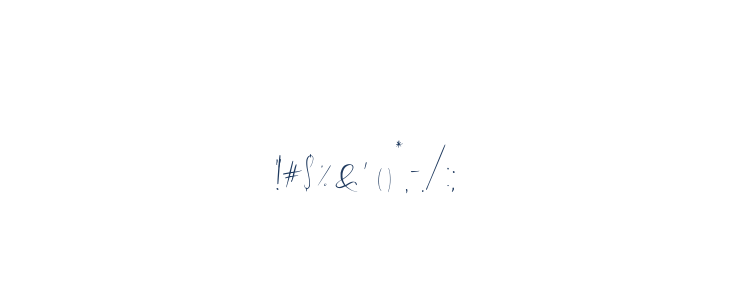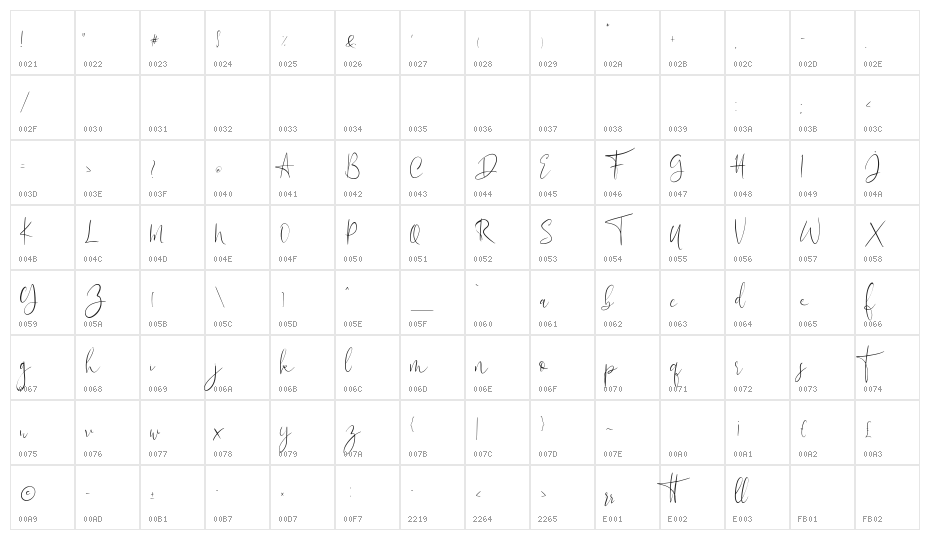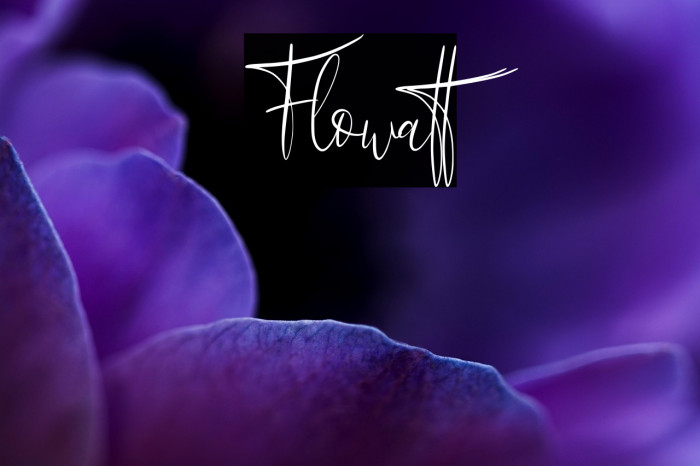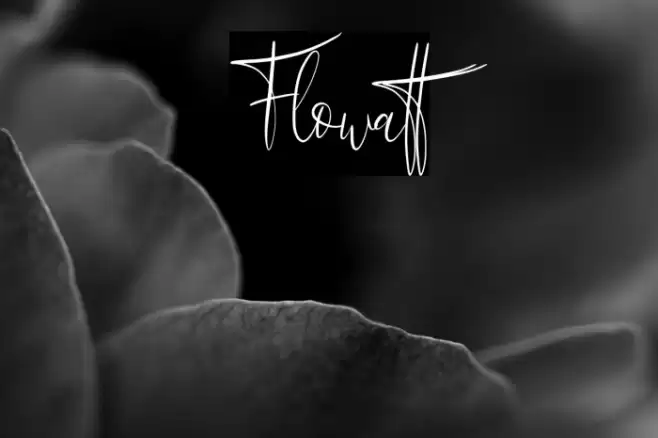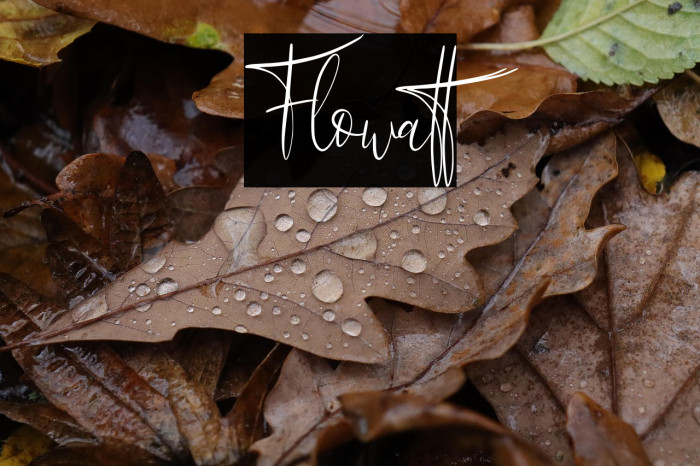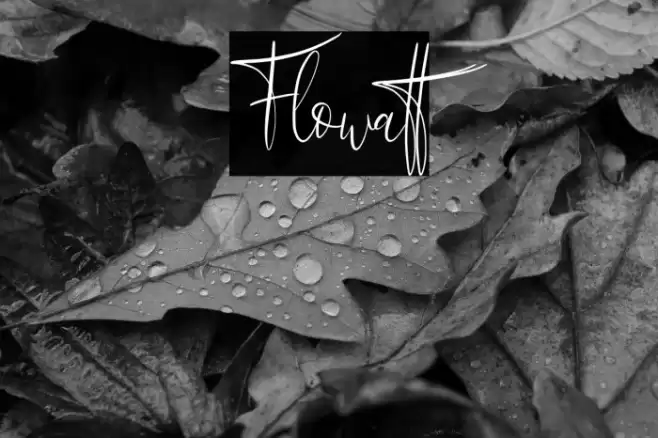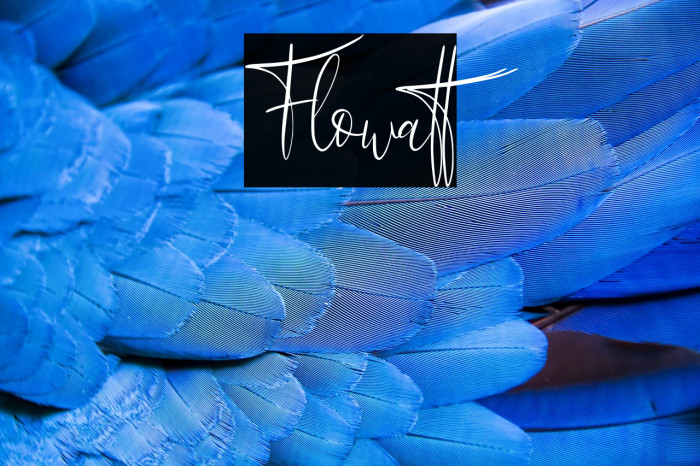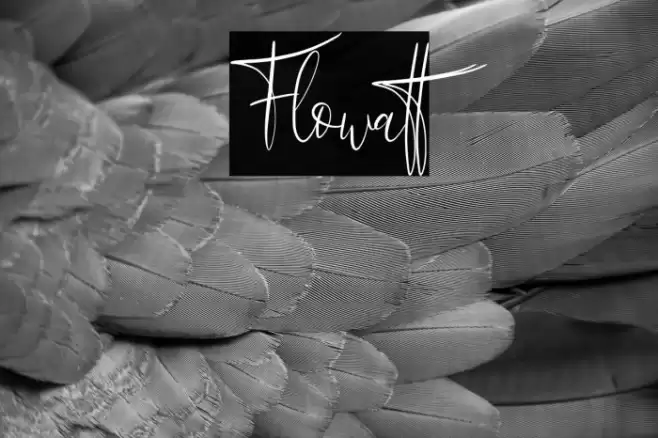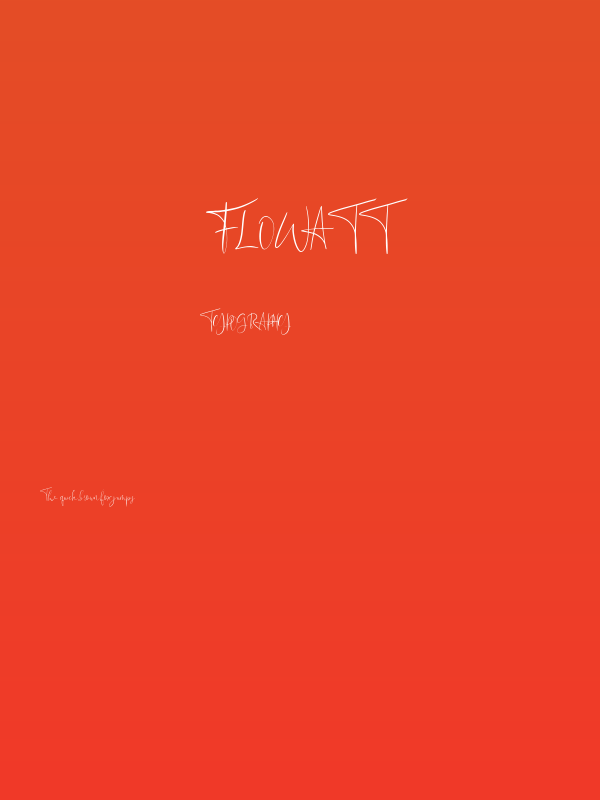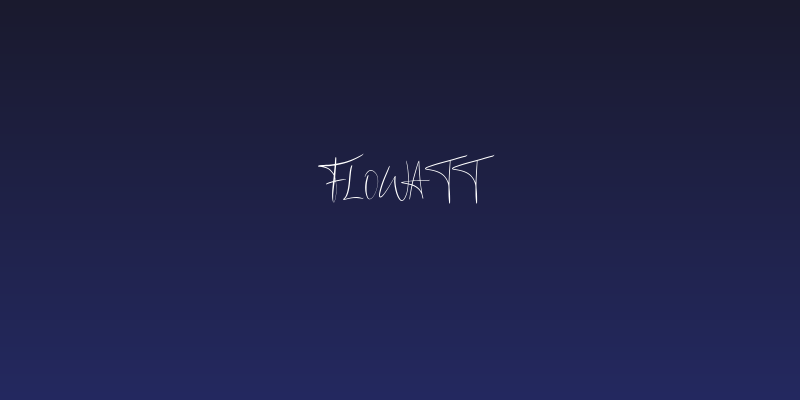
Flowatt Font
Flowatt Description
This font features a dynamic and expressive handwritten style, characterized by its flowing and interconnected letterforms. The uppercase letters exhibit a bold, artistic flair with elongated strokes and varying line thickness, creating a sense of movement and elegance. The lowercase letters maintain a consistent fluidity, with loops and curves that enhance its handwritten appeal. The numerals and special characters follow the same stylistic approach, ensuring a cohesive look across all elements. This font's unique style makes it suitable for creative and artistic projects where a personal touch is desired.